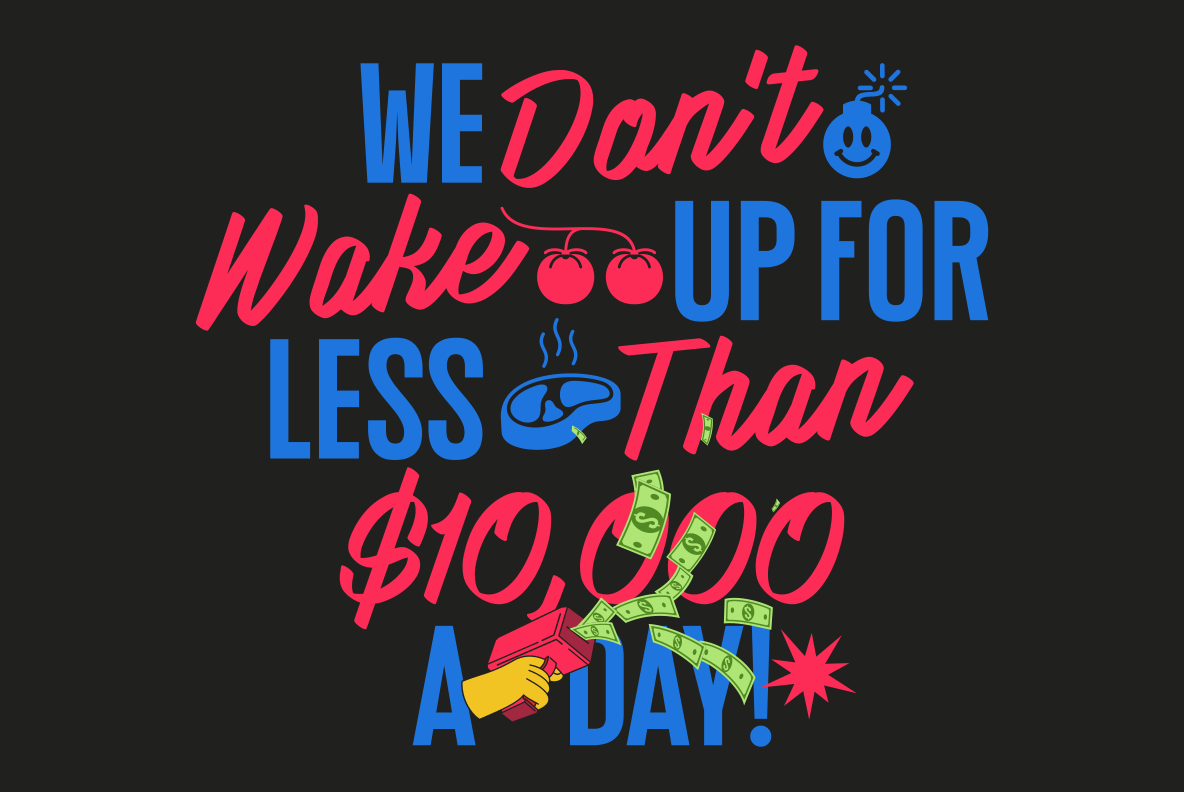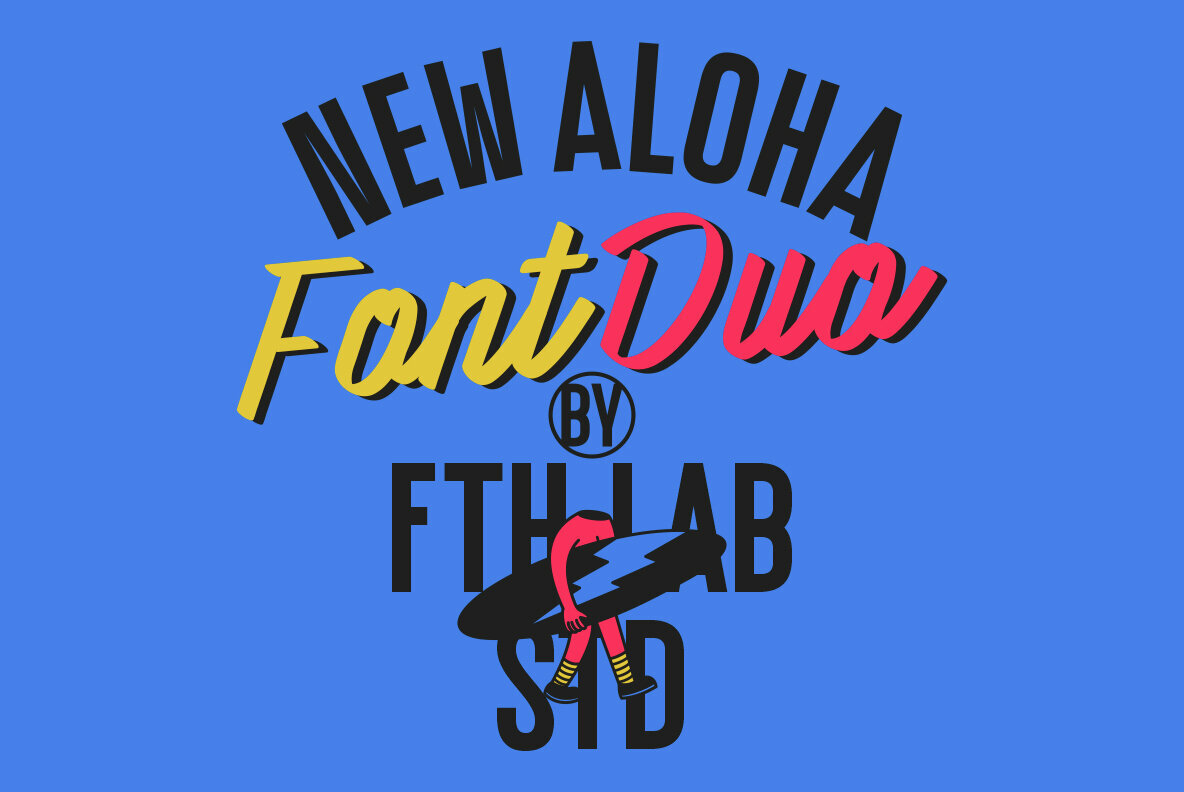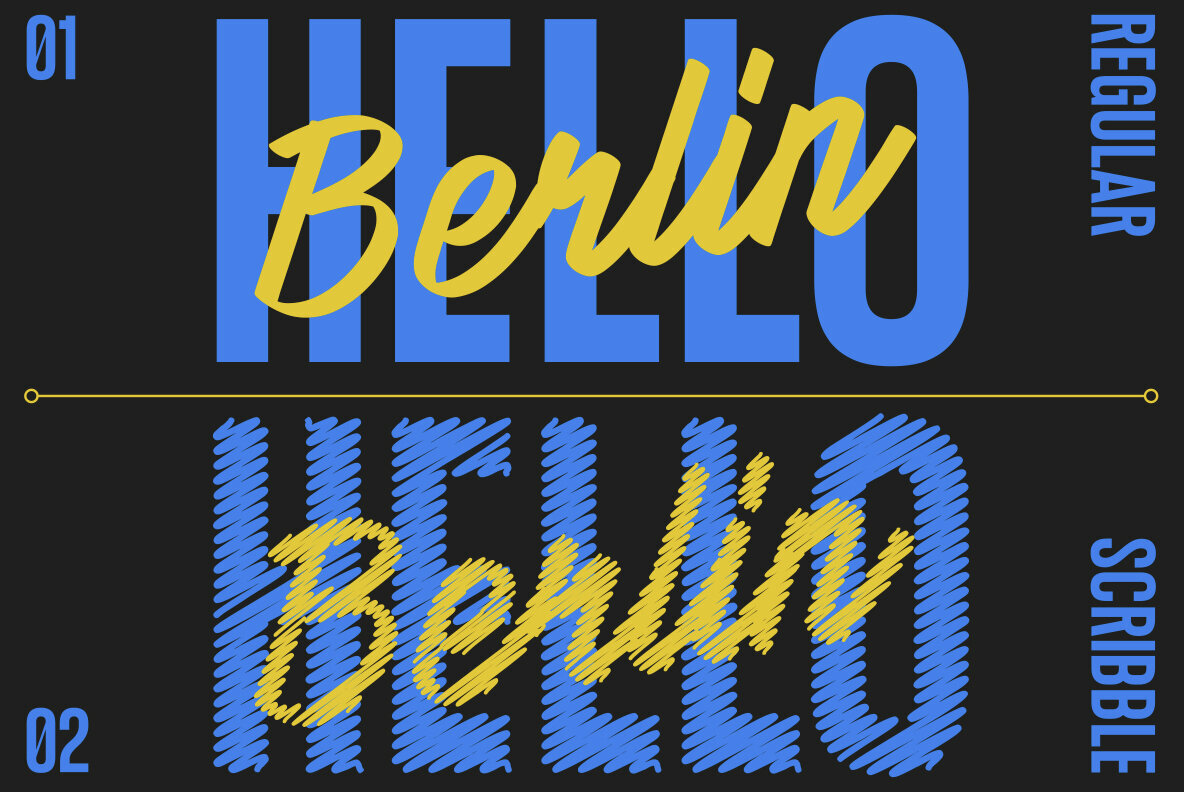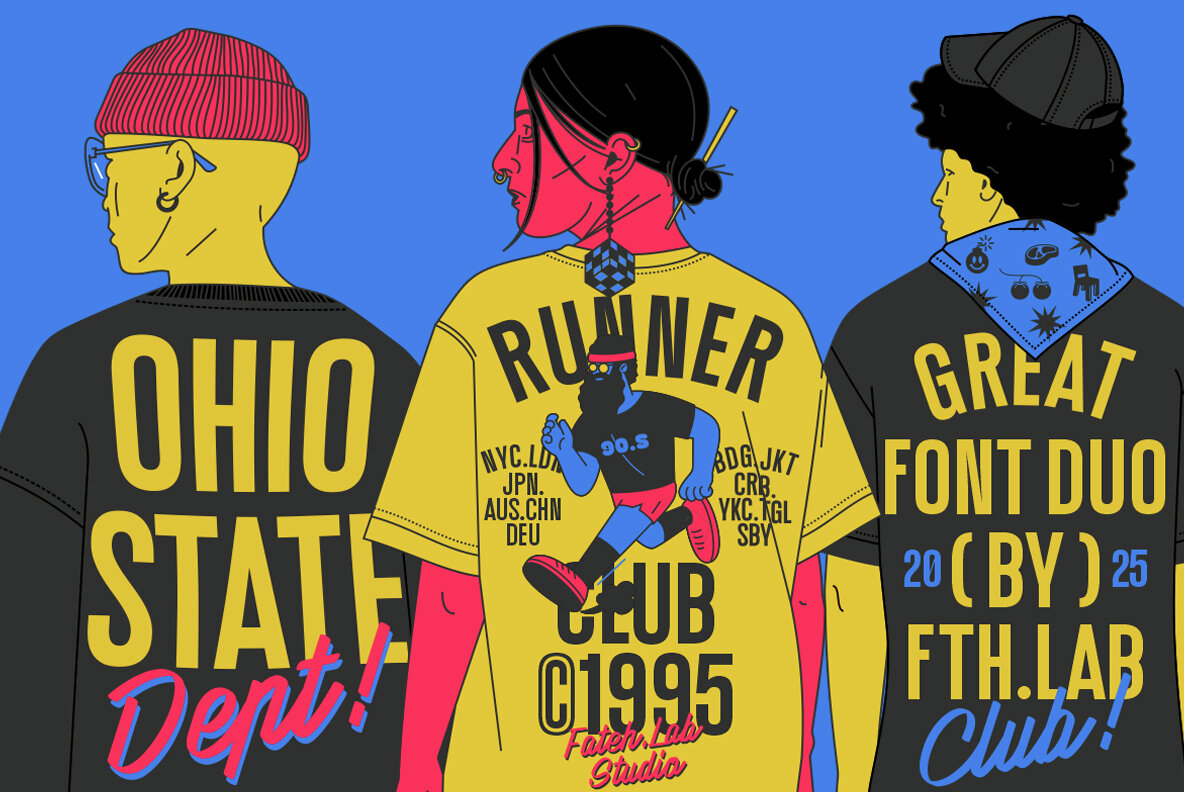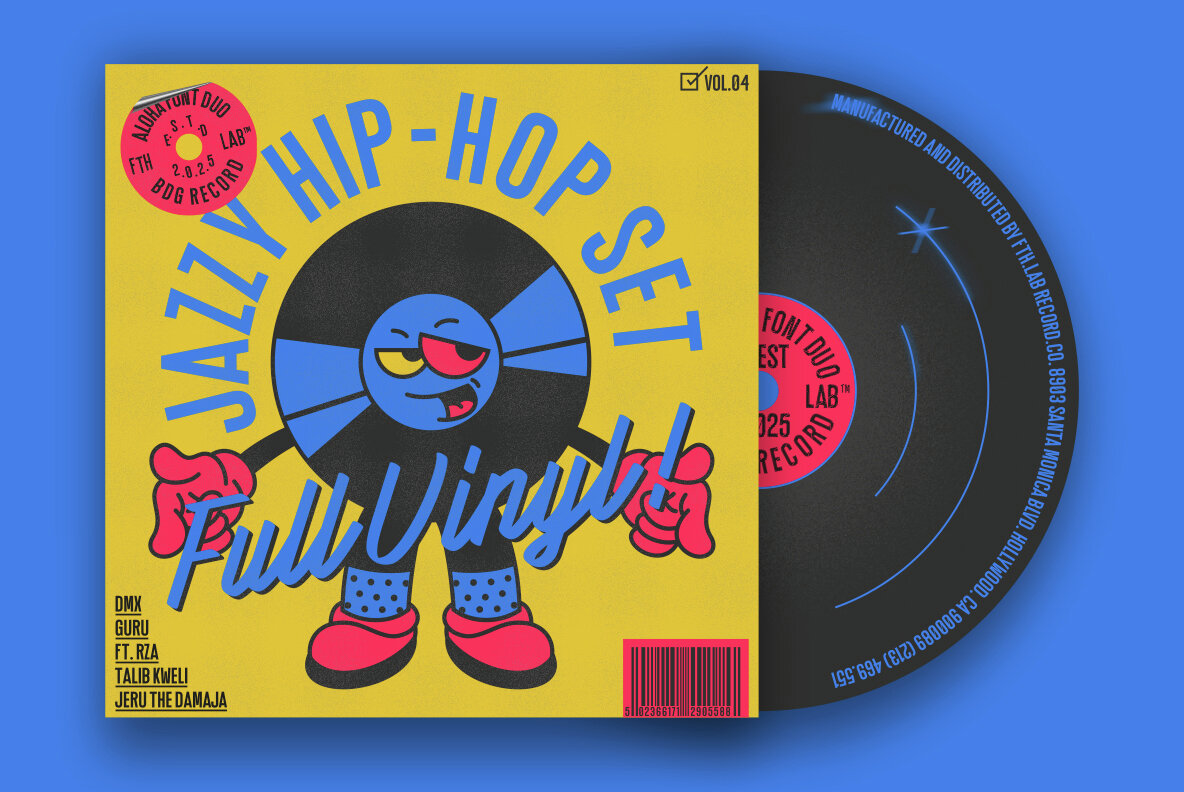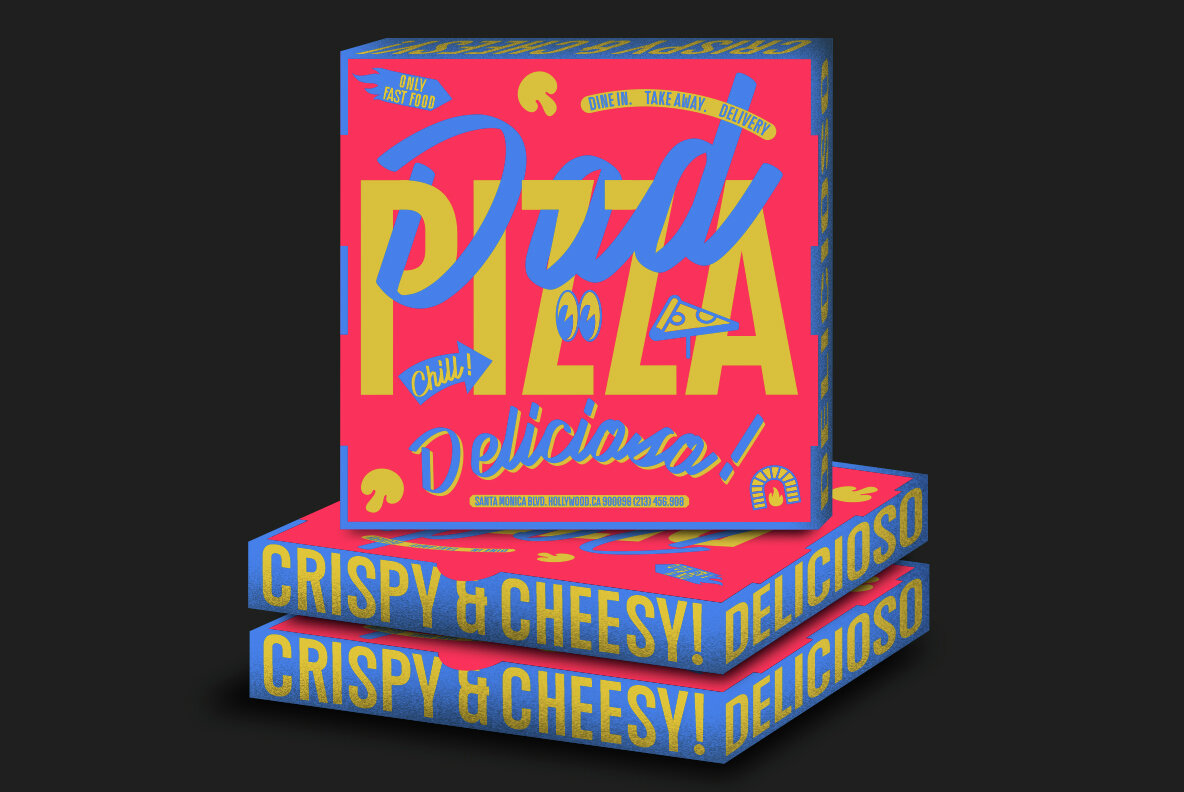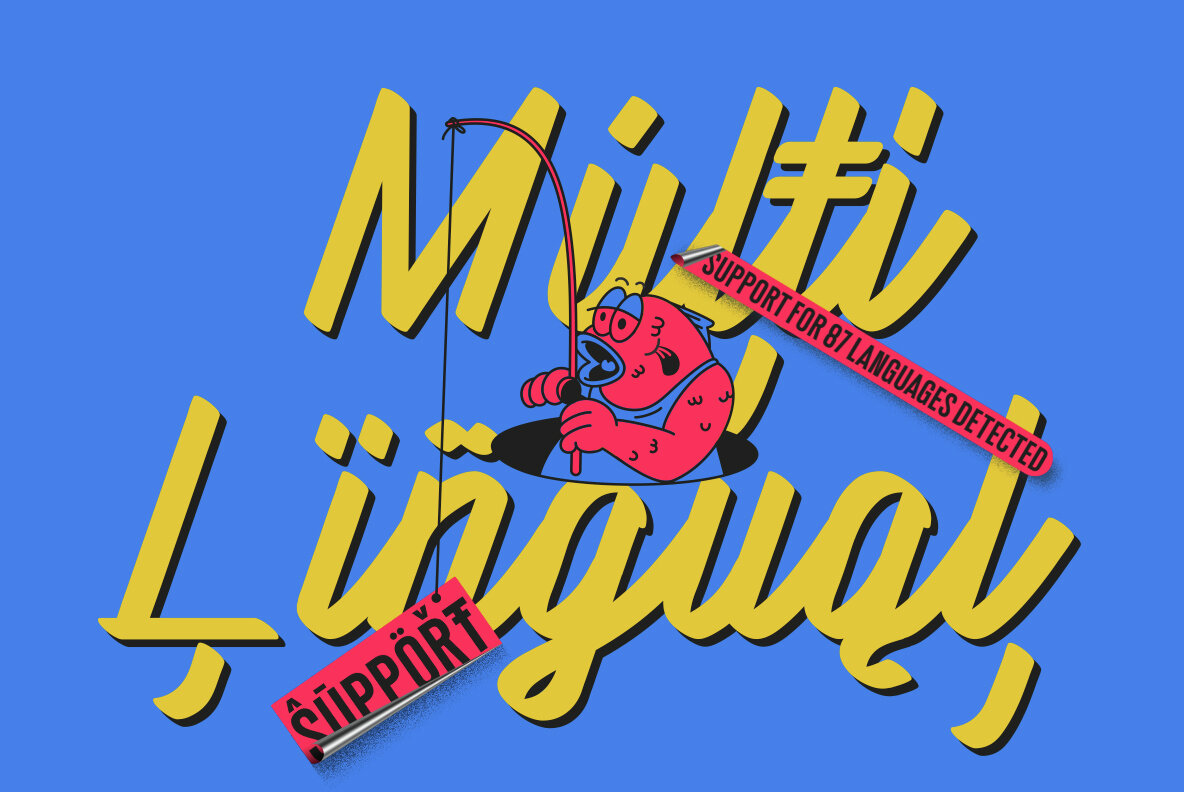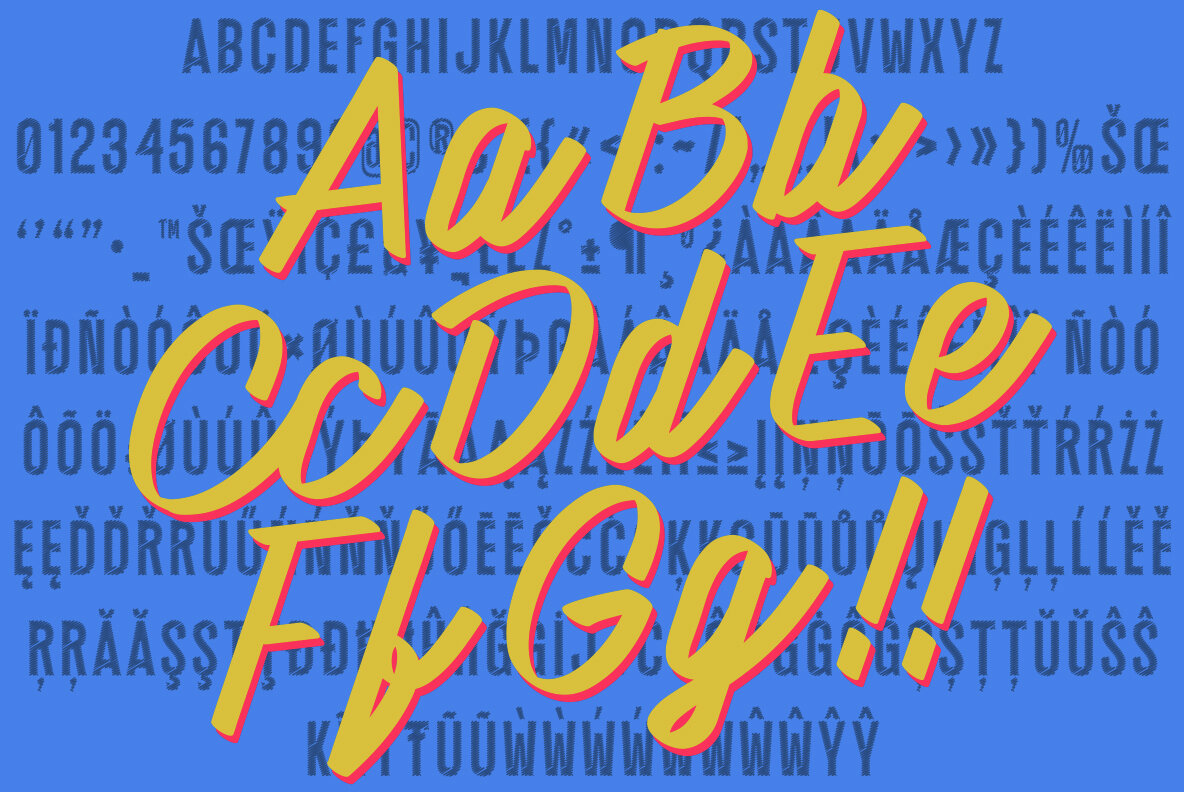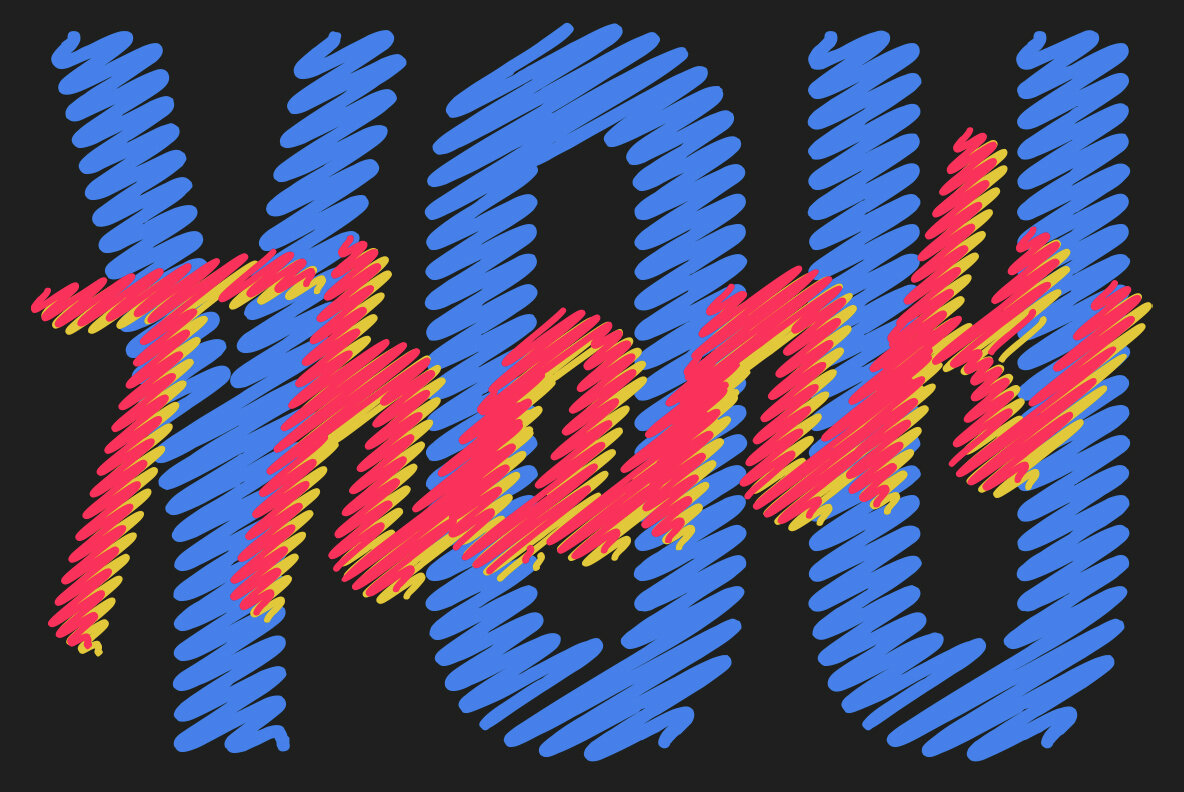
Aloha Font Duo
Aloha is a versatile duo font that harmonizes beautifully with modern fashion themes. Enhanced with illustrations, it offers an appealing aesthetic that enriches your designs.Aloha Duo Font: Perfect for Fashion-Themed Designs